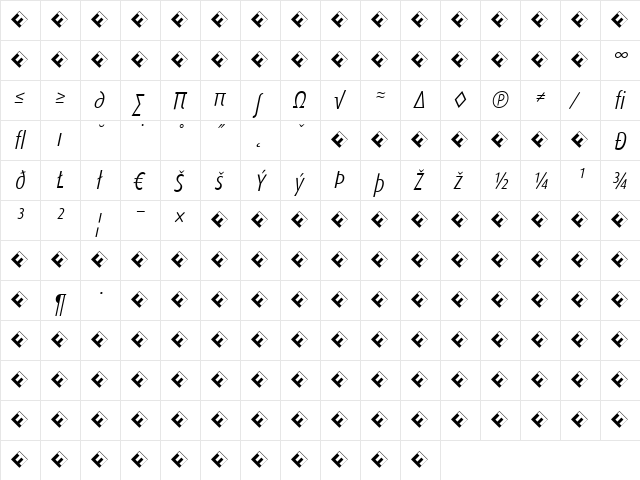
DaxCondensed-LightItalicExp Italic Font Preview
| Foundry | Hans Reichel, published by Fontshop International for the FontFont library |
Design Context for DaxCondensed-LightItalicExp Typeface
DaxCondensed-LightItalicExp offers clean, dependable letterforms without strong stylistic allegiance, making it a practical choice for designers who need flexibility. The dynamic lean of this cut emphasises speed and emphasis in any layout. Its slender proportions lend an understated elegance to any composition. The condensed width makes it efficient for tight spaces without sacrificing legibility.